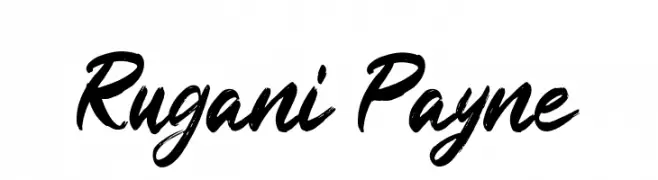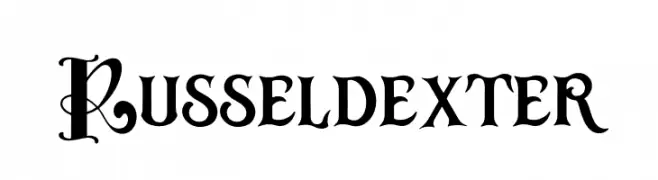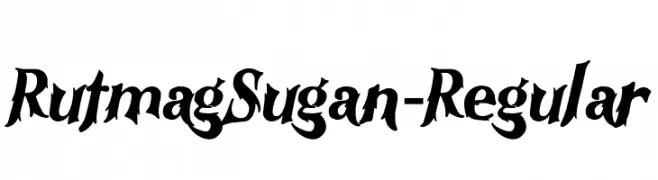
A dynamic and elegant script font with flowing, cursive letterforms.
A bold, brush-style font with dynamic and energetic strokes.
A bold, energetic script font with a hand-painted appearance.
A bold, decorative font with ornate uppercase letters and clear, impactful numbers.
A decorative and bold font with vintage calligraphic elements.
A bold, cursive font with dynamic strokes and a lively, handwritten style.
A graceful and elegant script font with fluid, cursive strokes.
An elegant script font with flowing, high-contrast strokes.
A bold, dynamic font with sharp, angular edges and a striking appearance.
A bold, gothic-style font with sharp, angular edges and dramatic flair.